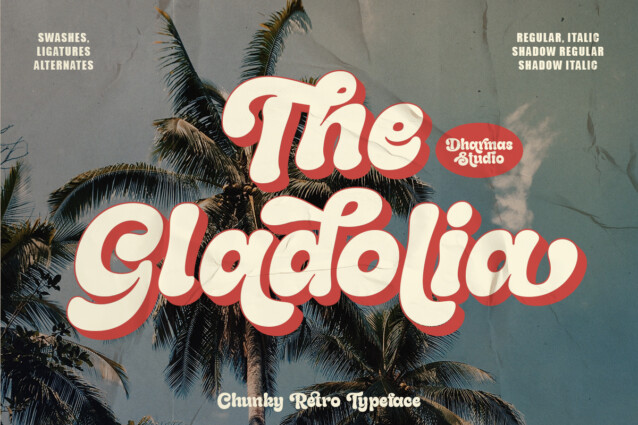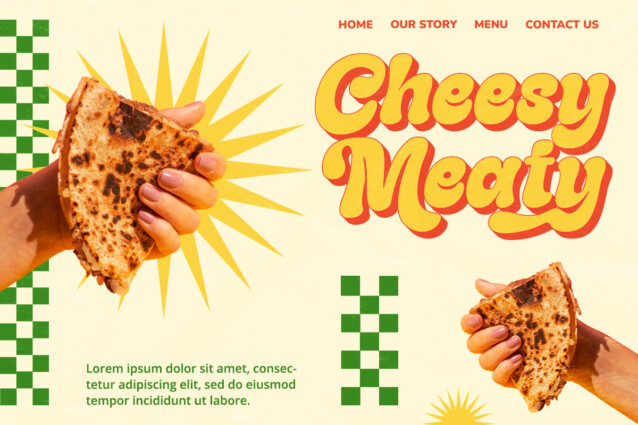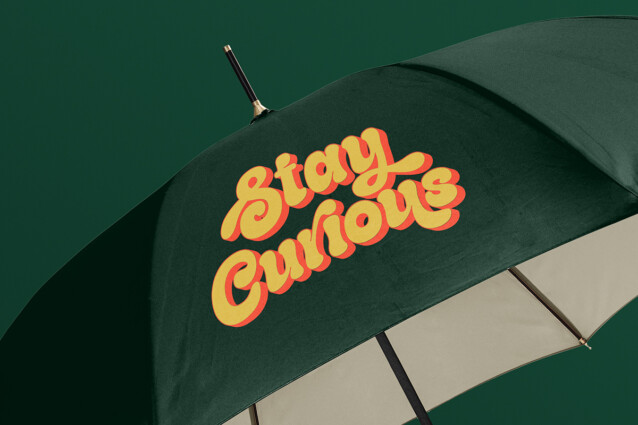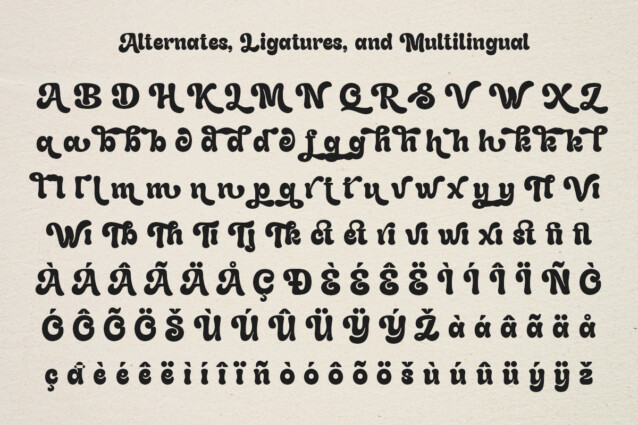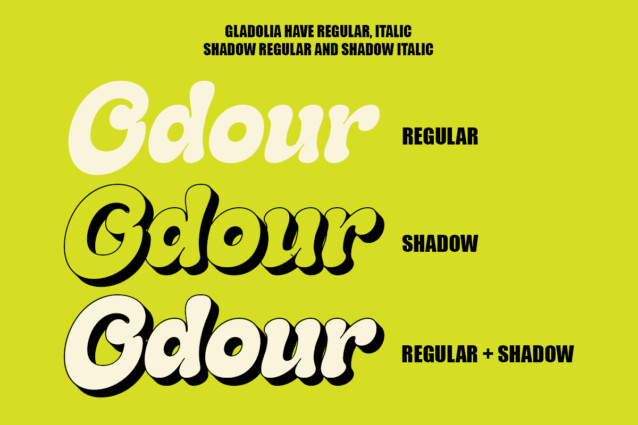
Gladolia Typeface
Gladolia Typeface is a chunky typeface with a unique retro style that is sure to make your designs stand out. With 2 different style fonts, regular and oblique, plus an extra Extruded Font version for each style, you can easily create eye-catching designs without any extra effort.
This font is perfect for a retro 80s theme, and can be used for cover magazine, brochure, logo, headline or quotes, stand alone display, and short paragraphs or content. Each font in the family is dynamic and authoritative on its own, making it perfect for any display project.